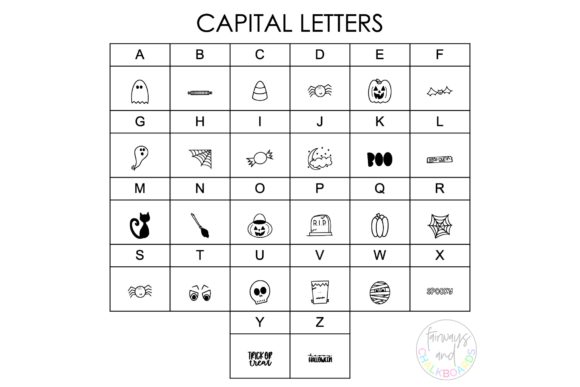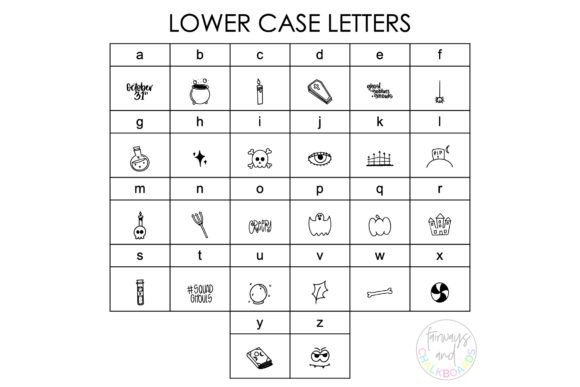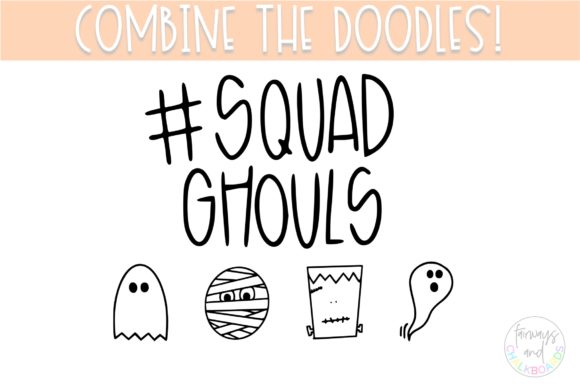
Halloween Doodle Font: A Spook-tacular Addition to Your Designs
Halloween is just around the corner, and what better way to get into the spooky spirit than with a font that’s as cute as it is eerie? Look no further than the Halloween Doodle Font, a delightful dingbats font that’s sure to bring your Halloween-themed designs to life!
What is Halloween Doodle Font?
Halloween Doodle Font is a unique and charming dingbats font that’s specifically designed for Halloween enthusiasts. This font is perfect for designers, crafters, and anyone looking to add a touch of whimsy and spookiness to their projects. With its playful and intricate designs, Halloween Doodle Font is sure to make your Halloween-themed ideas stand out from the crowd.
Features of Halloween Doodle Font
So, what makes Halloween Doodle Font so special? Here are just a few of its standout features:
- Cute and creepy designs: This font features a range of adorable and eerie designs, from ghosts and bats to pumpkins and skeletons.
- Dingbats style: Halloween Doodle Font is a dingbats font, which means it’s made up of decorative symbols and illustrations rather than traditional letters.
- Versatile: Halloween Doodle Font can be used for a wide range of projects, from Halloween invitations and decorations to social media graphics and more.
How to Use Halloween Doodle Font
Using Halloween Doodle Font is incredibly easy, and there are countless ways to incorporate it into your designs. Here are a few ideas to get you started:
- Halloween invitations: Add a touch of spooky whimsy to your Halloween invitations with Halloween Doodle Font.
- Social media graphics: Create eye-catching social media graphics featuring Halloween Doodle Font and your favorite Halloween characters.
- Halloween decorations: Use Halloween Doodle Font to create custom Halloween decorations, such as garlands, banners, and signs.
- Craft projects: Add Halloween Doodle Font to your craft projects, such as scrapbooking, card making, and DIY Halloween decorations.
Why Designers and Crafters Love Halloween Doodle Font
Designers and crafters alike are sure to fall in love with Halloween Doodle Font, and here are just a few reasons why:
- Unique and eye-catching: This font is unlike anything you’ve ever seen before, making it the perfect way to add some personality to your designs.
- Easy to use: Halloween Doodle Font is incredibly easy to use, even for those with limited design experience.
- Versatile: This font can be used for a wide range of projects, from digital designs to handmade crafts.
- Seasonal: Halloween Doodle Font is the perfect way to get into the Halloween spirit and create designs that are timely and relevant.
Here are a few tips and tricks to help you get the most out of Halloween Doodle Font:
- Experiment with different colors: Try out different colors and color combinations to add an extra layer of depth and interest to your designs.
- Mix and match: Combine Halloween Doodle Font with other fonts and design elements to create unique and eye-catching designs.
- Use it for non-Halloween projects: While Halloween Doodle Font is perfect for Halloween-themed designs, it can also be used for other projects, such as Easter or Christmas designs.